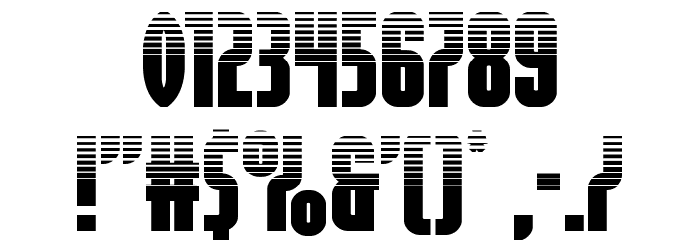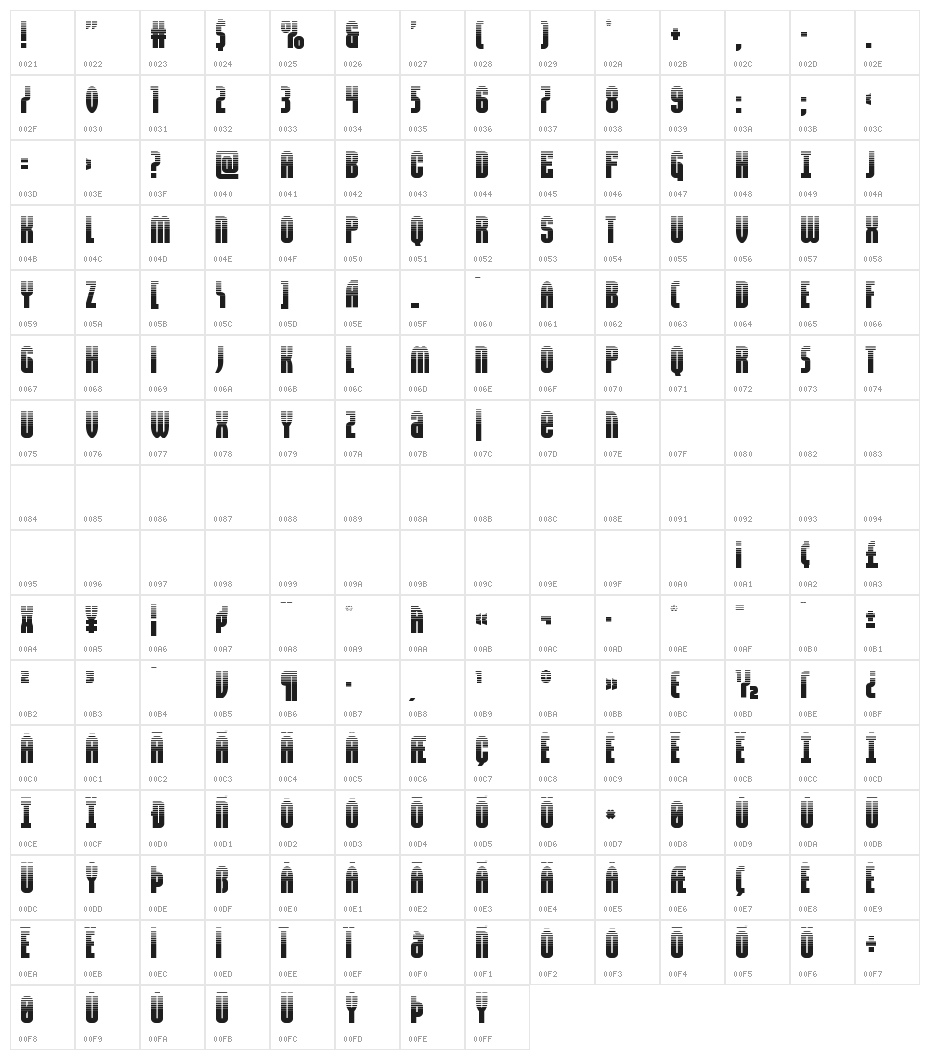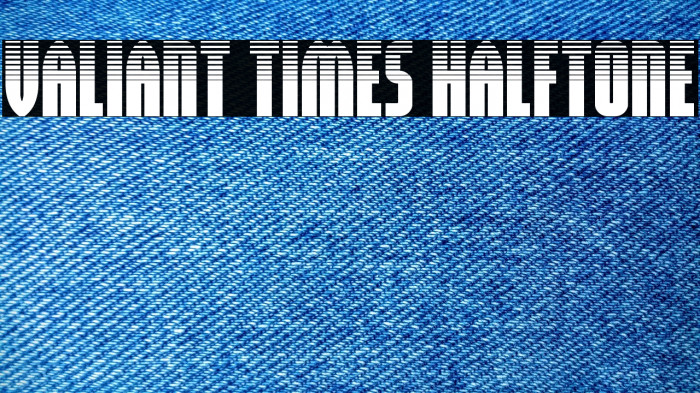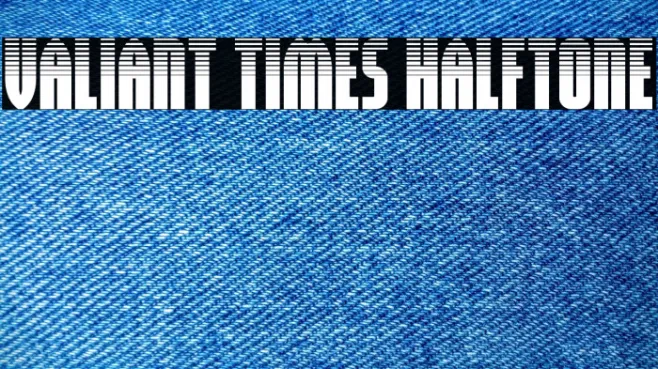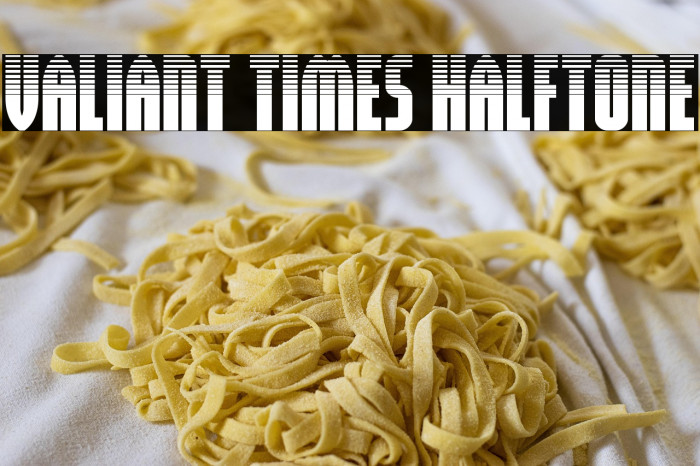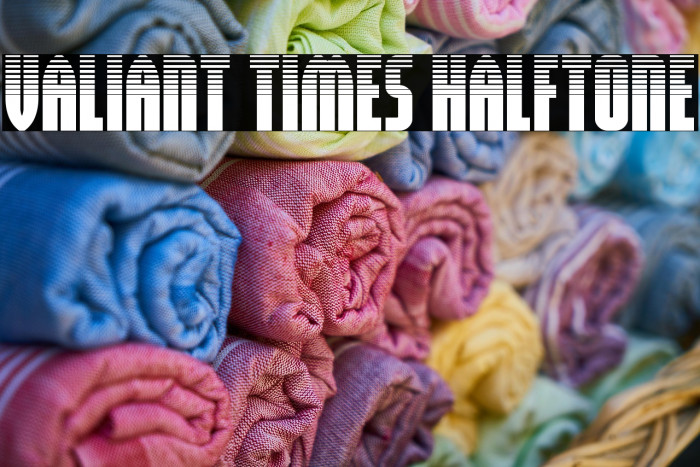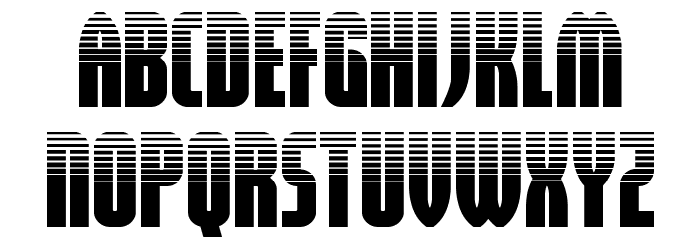
Valiant Times Halftone Font
Valiant Times Halftone Description
This font features a bold and striking design with a halftone effect that creates a unique visual impact. The characters are constructed with horizontal lines that gradually increase in thickness, giving a sense of depth and dimension. The uppercase letters are particularly prominent, with a strong presence that commands attention. The numbers and special characters follow the same stylistic approach, ensuring consistency across all elements. This font is ideal for projects that require a modern and edgy look, such as posters, album covers, or branding materials. Its distinctive style makes it stand out, while the halftone effect adds an element of intrigue and sophistication.